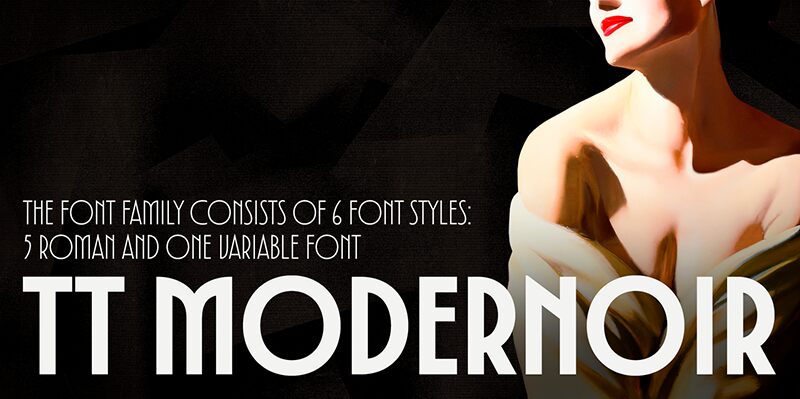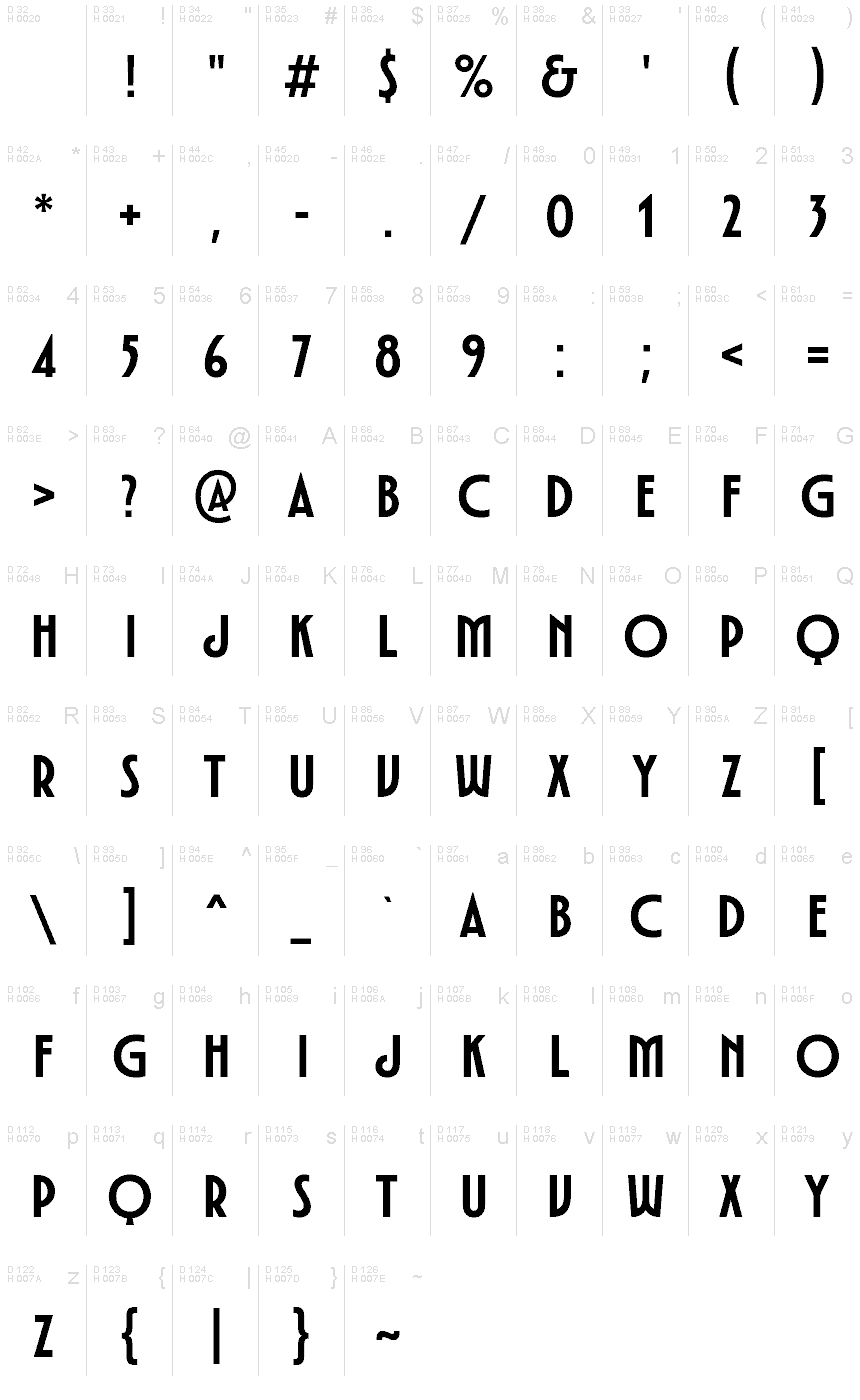
TT Modernoir Trial DemiBold
Introducing our new, super expressive TT Modernoir!
TT Modernoir is a display sans serif with dynamic proportions. Fluid lines and delicate Art Nouveau forms in this typeface blend seamlessly with the rhythmic flow and improvisational freedom of jazz. To design this font, we drew inspiration from the French typography of the XXth century and noir film aesthetics, which is reflected in its name.
The key feature of TT Modernoir is a significant proportion difference between square and oval characters: the square ones are extremely narrow, and the ovals are very wide. The curved letter legs give the font an exquisite look, and the dynamic swirls infuse it with the feeling of musical rhythm and movement.
The typeface doesnt feature lowercase characters, but we included small caps to highlight prepositions, short words, and other text elements. To make the typesetting look more balanced, the stylistic set with narrow proportions for the oval characters can be used. On the contrary, the set with underlined glyphs will increase the level of expressiveness where its needed. The typeface also includes the so-called curly set with swirls in the letters S and Z and curved legs in R and Я.
A small icon set can enhance your design, offering distinctive black cats, heart-tipped arrows, and musical notes. Useful OpenType features and a variable font with a weight variation axis allow the typeface to adapt to a wide variety of tasks.
TT Modernoir shines best in large point sizes. It shines best on posters, signage, packaging, book and magazine covers, as well as in branding and logos.
Bring a touch of elegance and romance to your design with TT Modernoir!